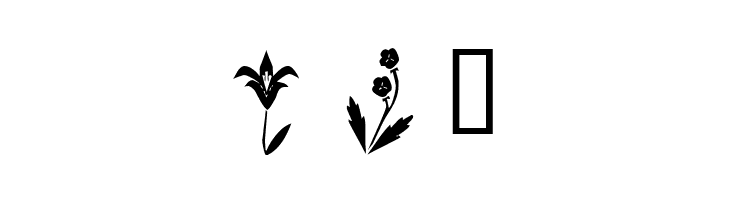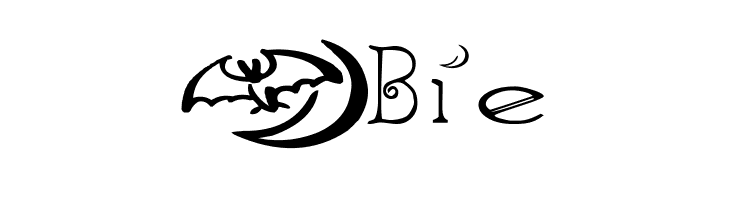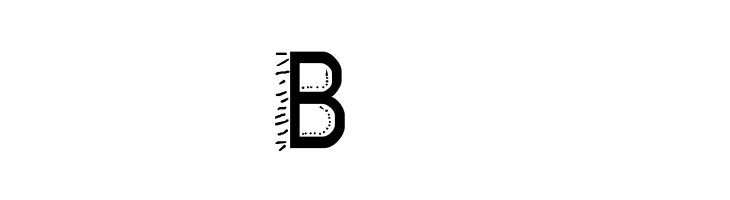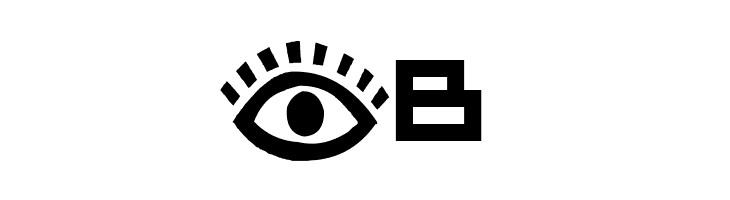
A playful, casual handwritten font with irregular, flowing letterforms.
A decorative floral and leaf dingbat set with varied botanical silhouettes.
A decorative insect-themed dingbat font with detailed illustrations.
A whimsical, spooky-themed font with bat motifs and decorative elements.
A bold, modern sans-serif font with playful distortions and unique character shapes.
A bold, decorative font with dynamic radiating lines on each character.
A bold, decorative font with an eye motif integrated into each character.
A decorative font with characters inside turtle silhouettes, offering a playful and thematic design.
A bold, expressive handwritten font with a casual and artistic style.
A playful, hand-drawn font with bold, sketchy characters.